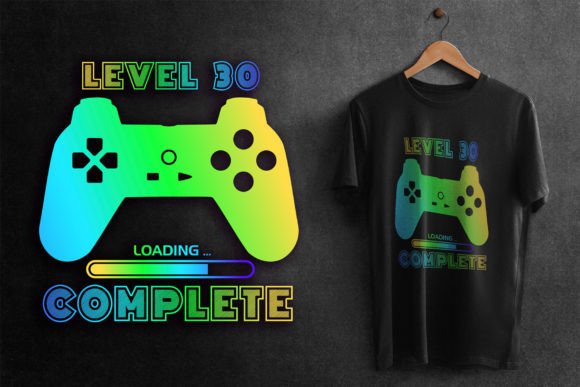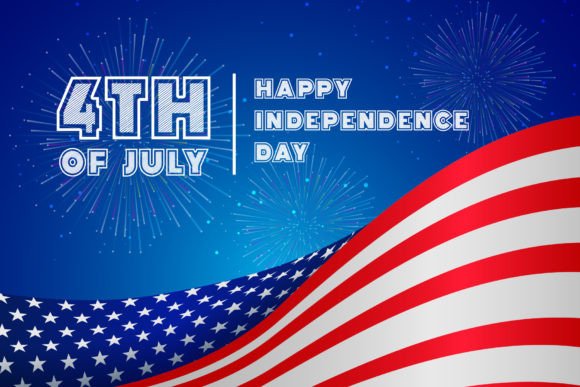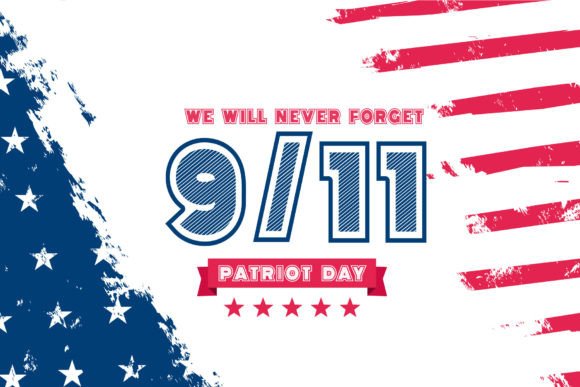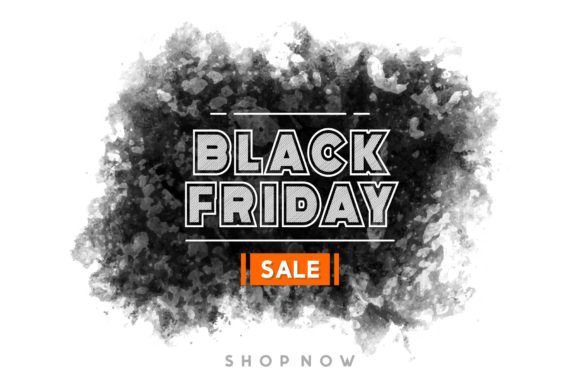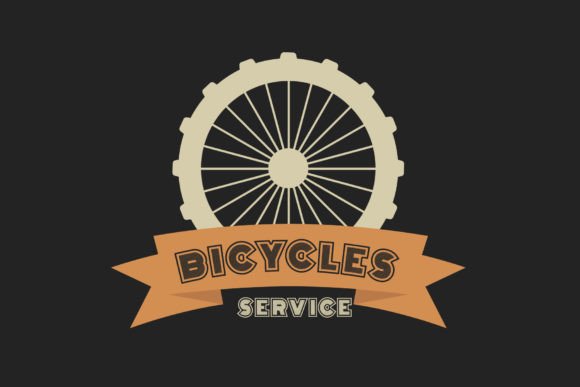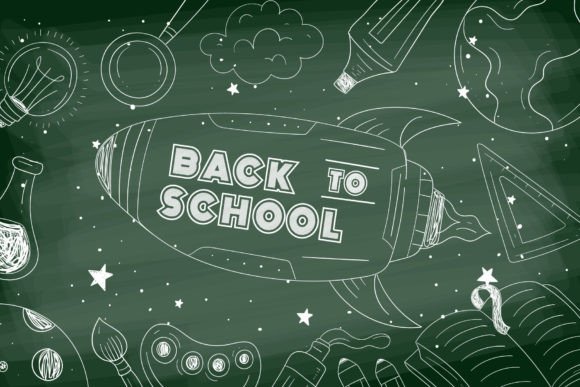
The Ultimate Gamer Font: Elevate Your Designs with a Cool and Strong Display Font
I’ll never forget the time I was working on a project for a gaming client, and I was struggling to find the perfect font to capture the essence of their brand. The client wanted something bold, edgy, and attention-grabbing, but I was coming up blank. That’s when I stumbled upon the Gamer Font, and it was love at first sight! 💡
With its strong and incredibly cool design, the Gamer Font is a display font that can elevate any creation, from publications and logos to business cards and t-shirts. In this article, I’ll share my honest review of the font, provide a practical guide on how to use it, and explore similar fonts and alternatives.
Honest Review: What I Love and Some Quirks
- ✅ Versatility: The Gamer Font is incredibly versatile and can be used for a wide range of design projects.
- ✅ Readability: Despite its bold design, the font is surprisingly readable, even at smaller sizes.
- ✅ Unique Character: The font has a unique character that sets it apart from other display fonts.
Some Quirks 🤔
- ⚠️ Limited Use for Body Text: While the font is great for headlines and titles, it’s not suitable for body text due to its bold design.
- ⚠️ Some Kerning Issues: Like many display fonts, the Gamer Font may require some manual kerning adjustments to achieve optimal results.
The Gamer Font was inspired by the world of gaming and esports. The designer wanted to create a font that captured the energy and excitement of the gaming community, while also being versatile and readable.
| What is the Gamer Font best used for? | The Gamer Font is best used for display purposes, such as headlines, titles, and logos. |
| Is the Gamer Font suitable for body text? | No, the Gamer Font is not suitable for body text due to its bold design. |
| Is the Gamer Font available in different weights and styles? | Yes, the Gamer Font is available in different weights and styles, including bold, italic, and stylistic alternates. |
In conclusion, the Gamer Font is an incredible asset to any designer’s font library. With its strong and cool design, versatility, and readability, it’s perfect for a wide range of design projects. Whether you’re a designer, crafter, or creative hobbyist, the Gamer Font is sure to elevate your creations and add a touch of personality to your designs.